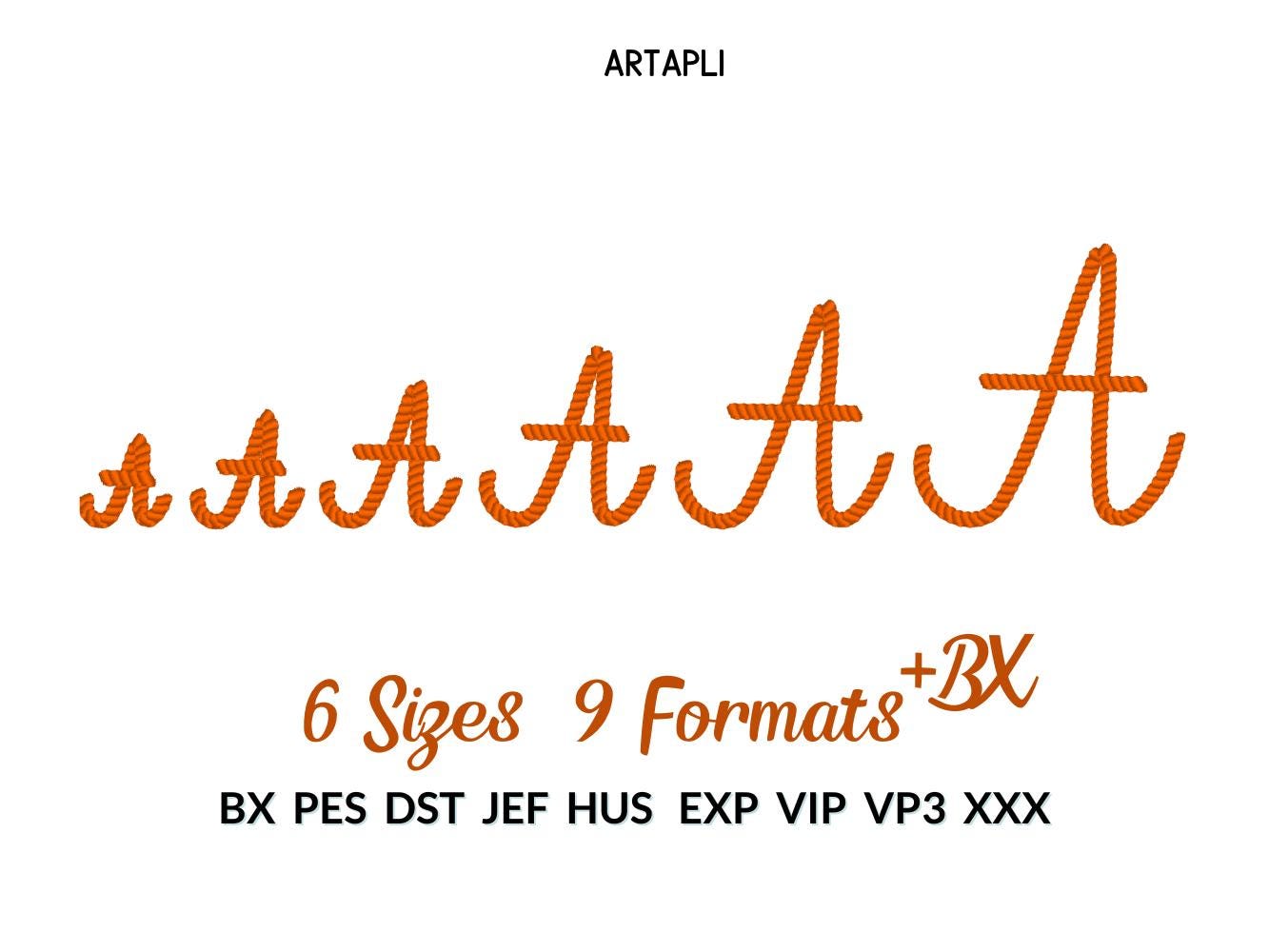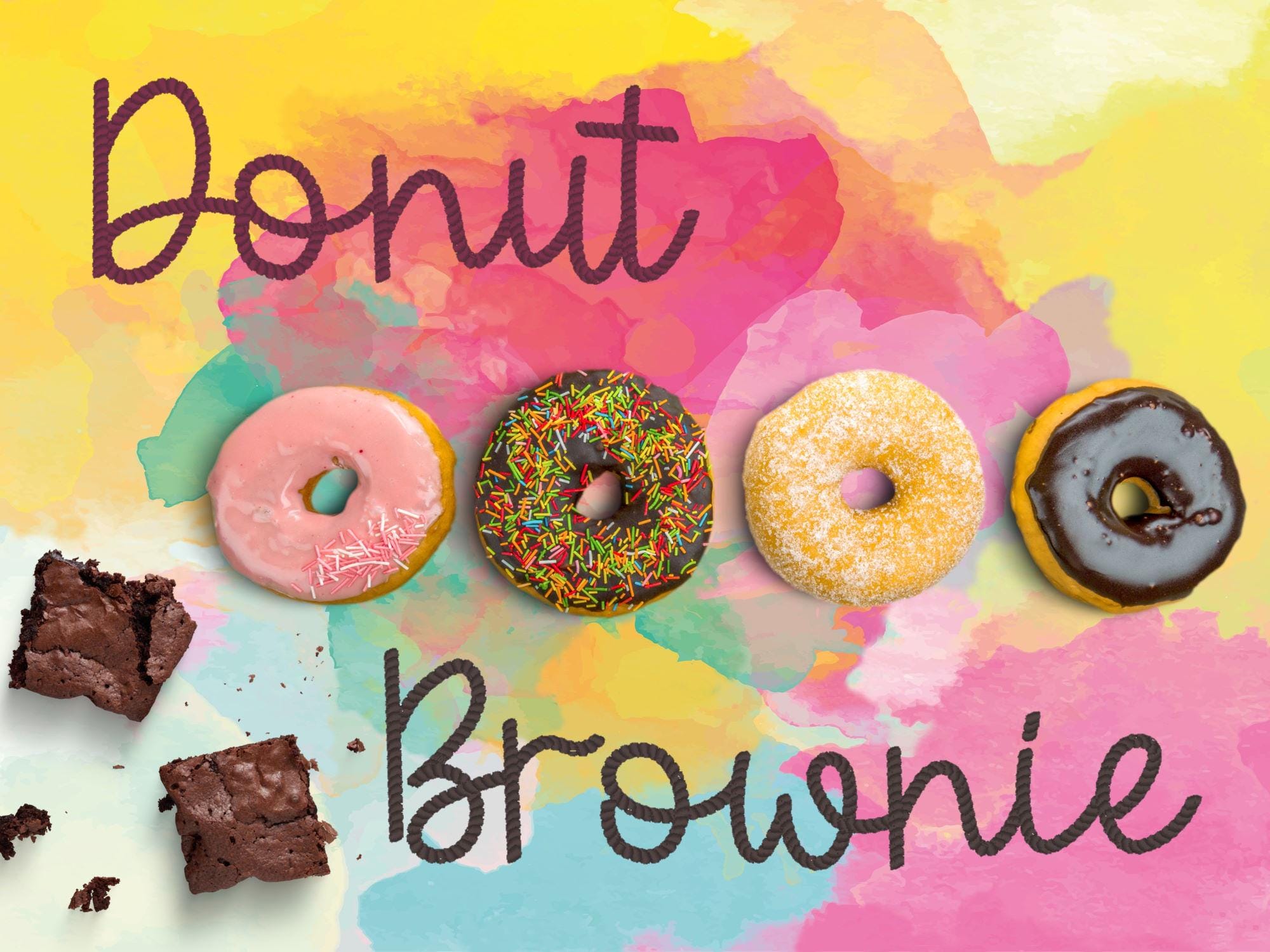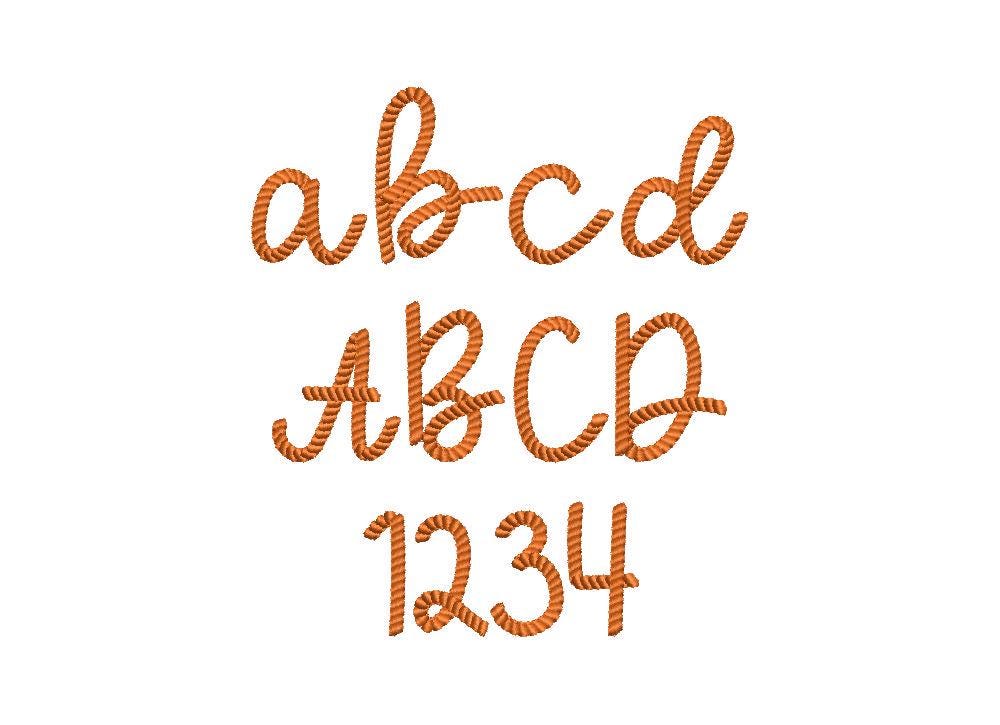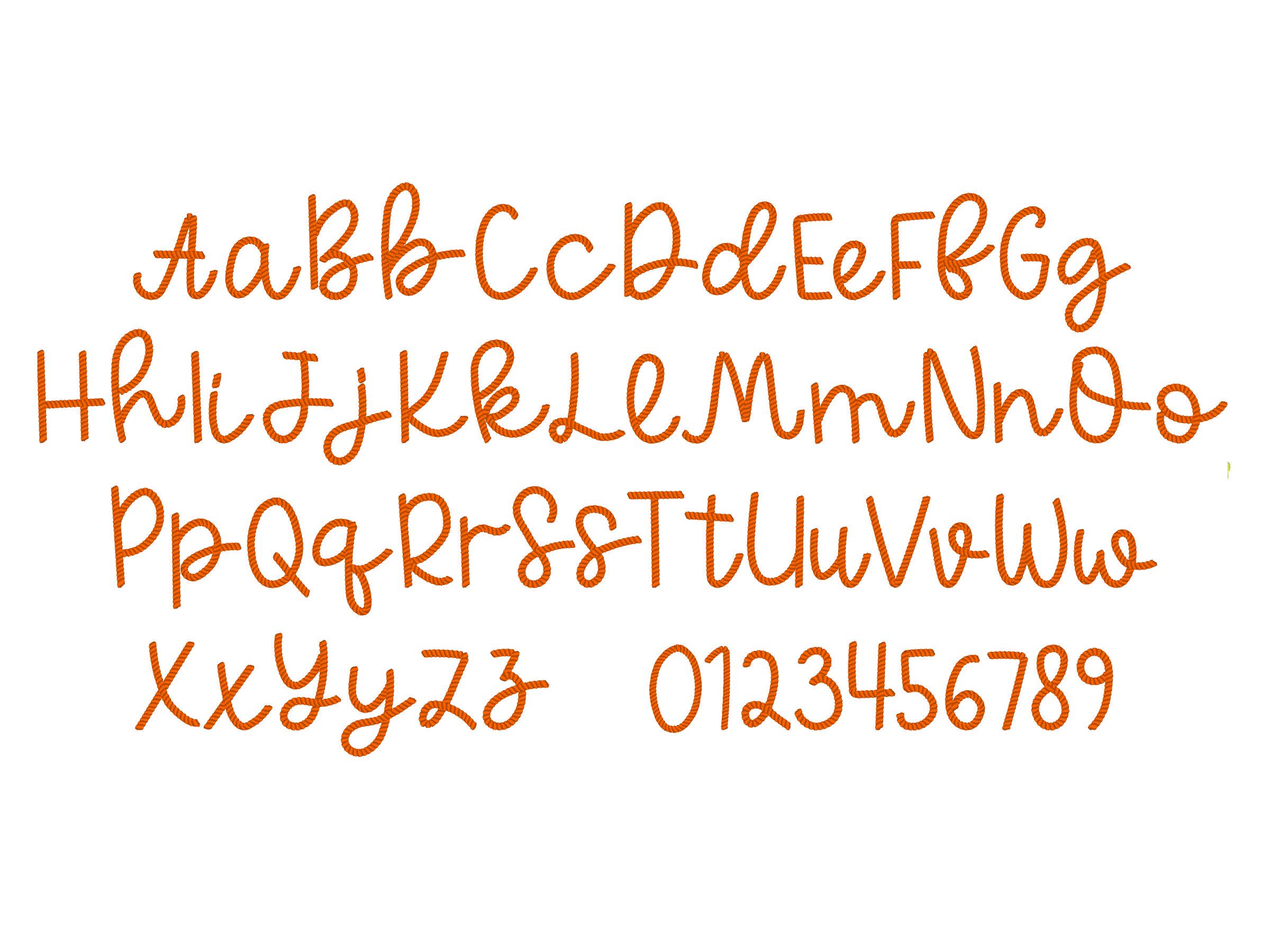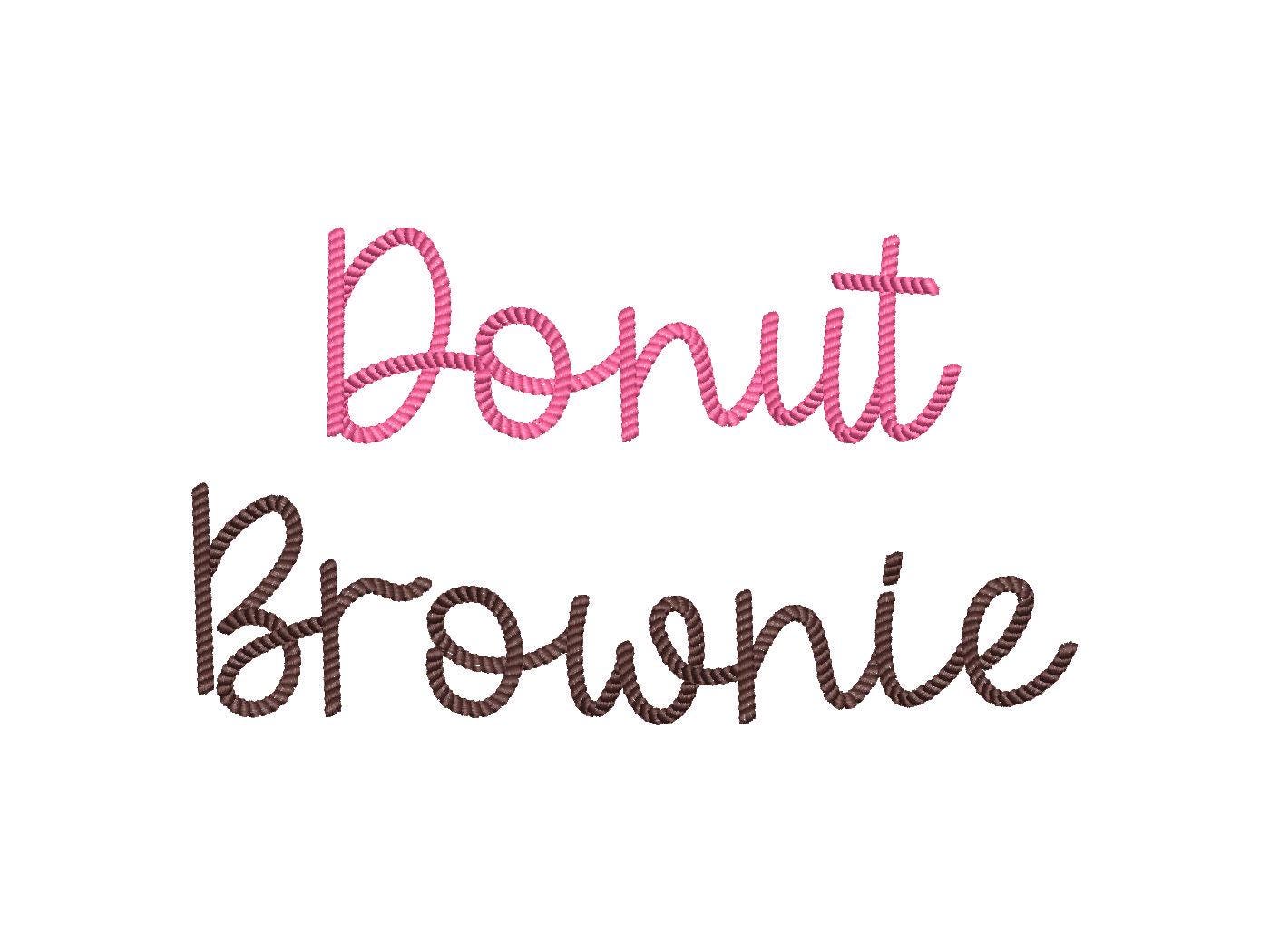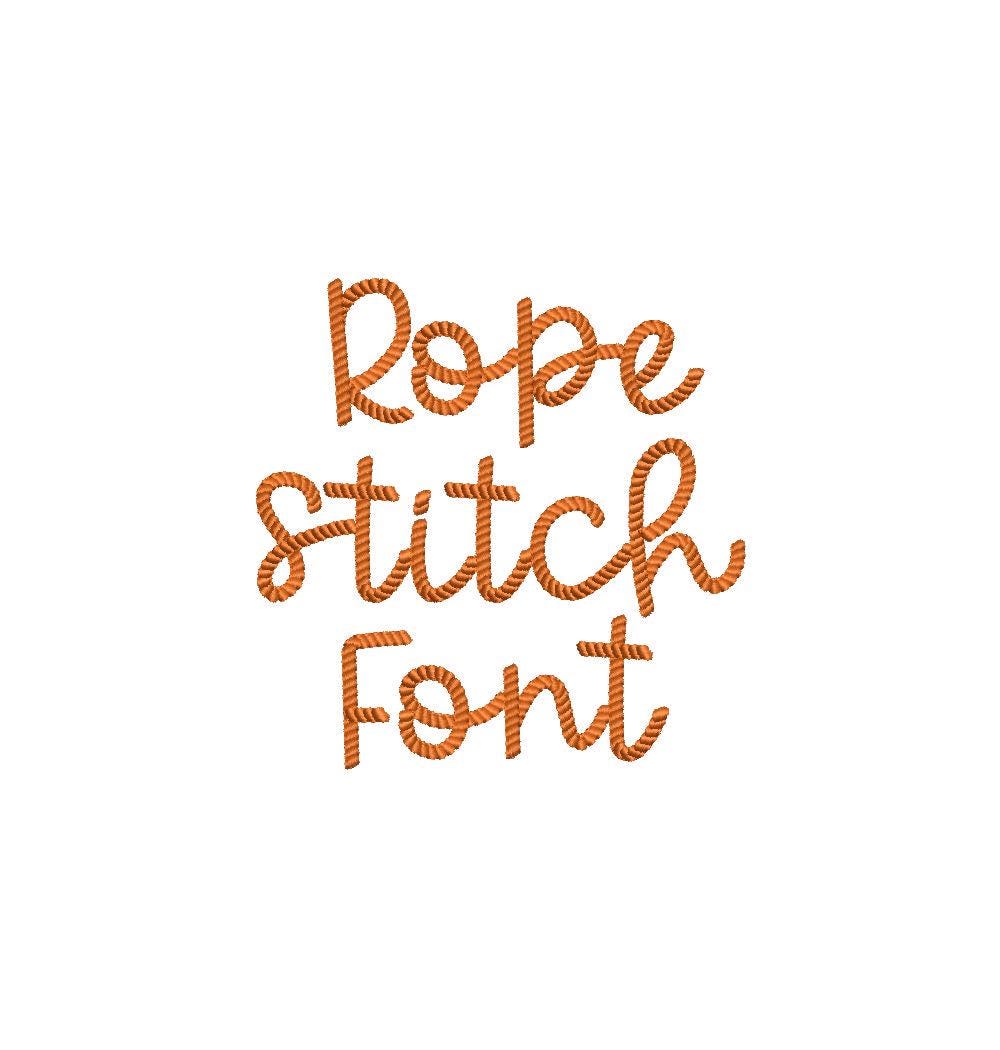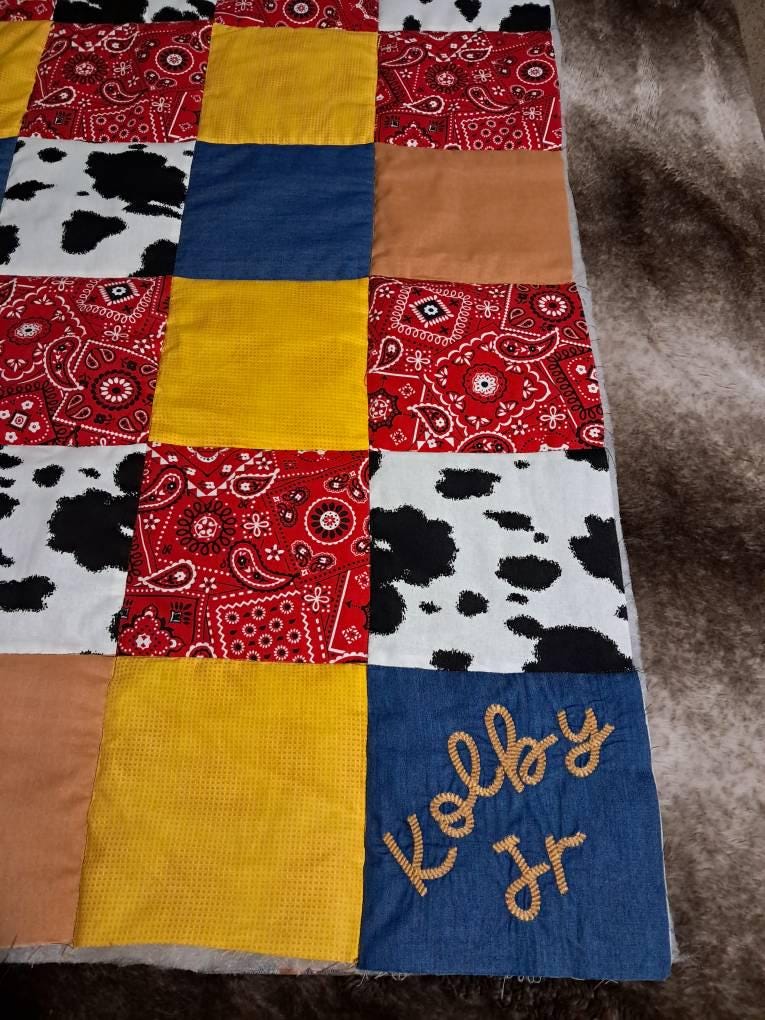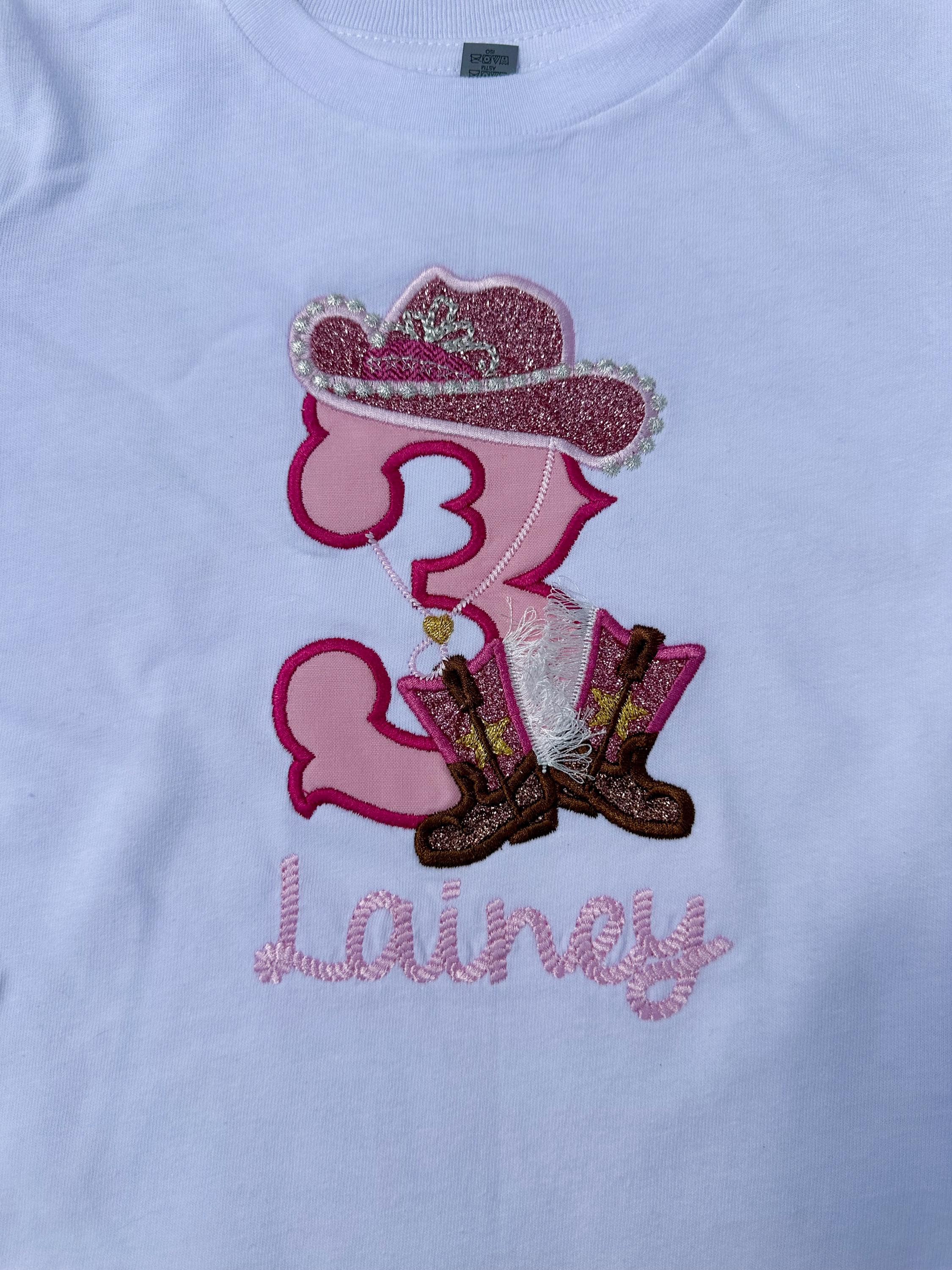
Rope stitch FONT machine embroidery designs assorted mini sizes 1 to 3 inch alphabet letters girl cowboy cowgirl monogram lasso rope effect
Entire alphabet uppercase and lowercase letters, and numbers.